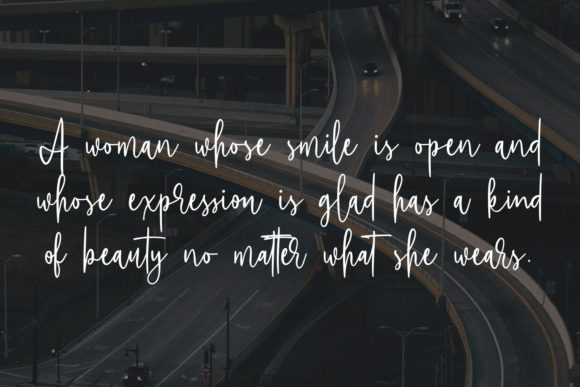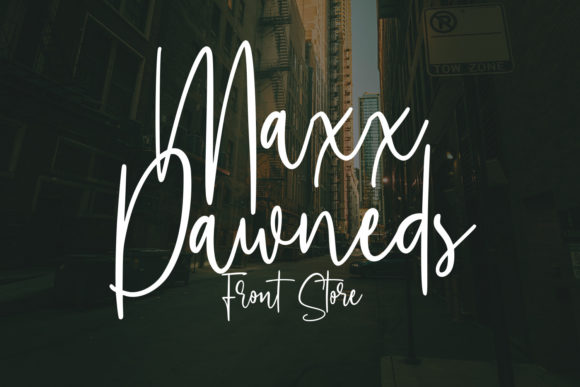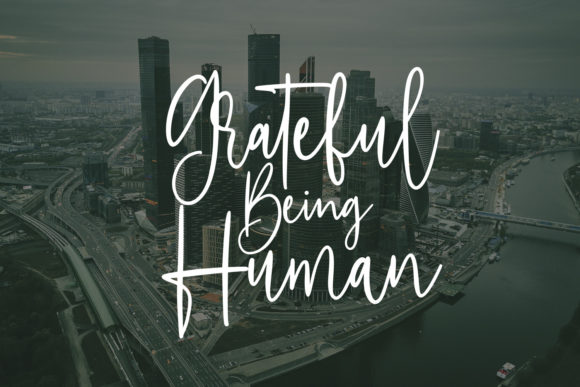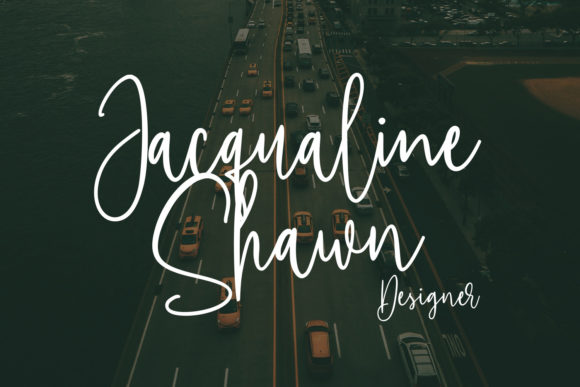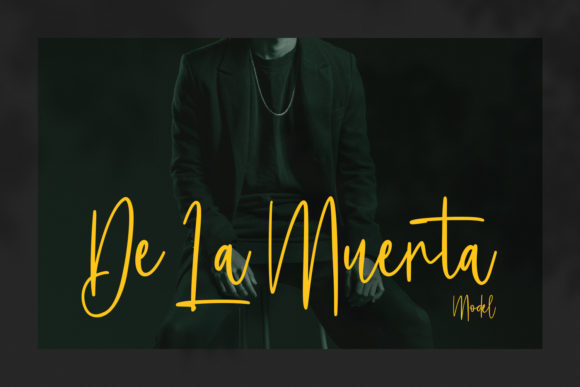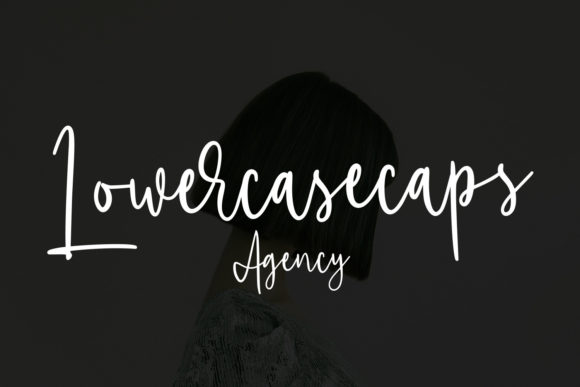
Introduction to Marxistown Script Font
Have you ever been working on a creative project, pouring your heart and soul into it, only to realize that the perfect font is missing? The one that would elevate your design from good to great? For designers, finding the right font can be a game-changer, and that’s exactly what the Marxistown Script Font aims to provide.
With its chic, flowing script style, this font is sure to add a touch of sophistication and elegance to any project. Its stylish alternates and ligatures make it a versatile design resource that can be used for a wide range of applications, from branding to editorial design. Whether you’re working on a high-end campaign or a personal creative project, the Marxistown Script Font is a valuable addition to your design toolkit.
Key Features of Marxistown Script Font
- High-quality, hand-drawn design perfect for creative projects that require a unique touch.
- Unique, cursive script style that adds a touch of elegance and sophistication to any design project.
- Perfect for use in logos, branding materials, invitations, and other design elements where a creative, handwritten feel is desired.
Honest Review: Marxistown Script Font
I recently had the chance to work with the Marxistown Script Font, and I must say it’s been a game-changer for my creative projects. This beautiful script font is a fantastic addition to any design resource, and it’s available for a free download.
One of the things that stands out about the Marxistown Script Font is its high quality and versatility. The transparent background makes it easy to use and customize, and it looks stunning on a variety of backgrounds.
Here are some of the things that work well with the Marxistown Script Font:
- Its elegant and refined design makes it perfect for wedding invitations, wedding stationery, and other special occasions.
That being said, there are a few limitations to keep in mind:
- The font may not be suitable for use in very small sizes, as it can become difficult to read.
Overall, I’m thoroughly impressed with the Marxistown Script Font. It’s a high-quality design resource that’s perfect for any creative project. With its elegant design and versatility, it’s definitely worth checking out.
The Marxistown Script Font is a beautiful, high-quality design resource perfect for any creative project. Its elegant script style makes it ideal for adding a touch of sophistication to your designs.
Conclusion
The Marxistown Script Font is a versatile and high-quality design resource that can be used in a variety of creative projects. With its elegant script style and transparent background capabilities, it’s the perfect addition to any design portfolio.